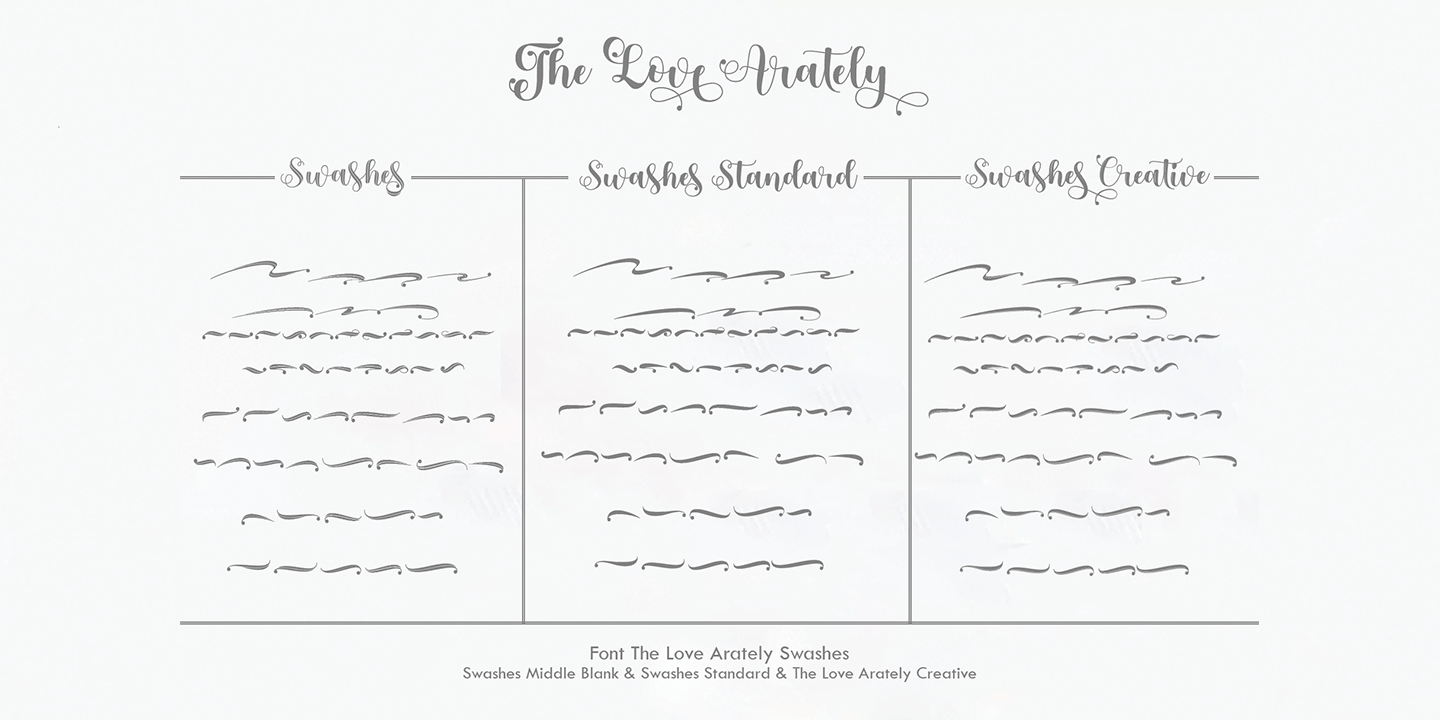
Love Arately
Designed by Rahmat Hidayat, Love Arately is a brush script, monograms and dingbat font family. This typeface has nine styles and was published by RtCreative.
The Love Arately is a fun font family and an elegant script font.
This font is perfect for retro designs, procreate, branding, shirts, logos, procreate, stickers, cricut projects, instagram, social media and more!